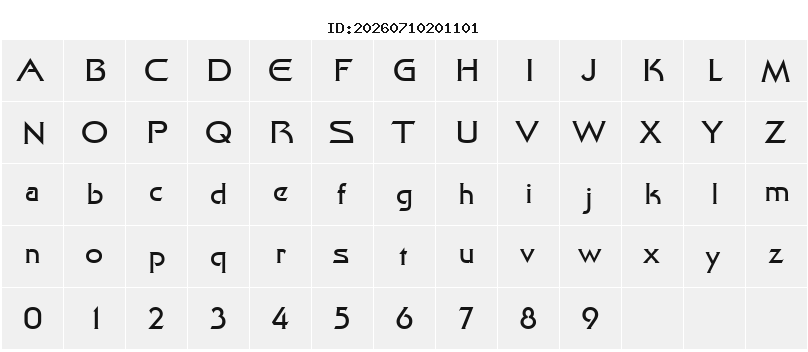
Galaxy BT Preview
• Font Name: Galaxy BT
• Full Font Name: Galaxy BT
Galaxy BT.ttf is a modern, elegant sans-serif font designed for ultimate readability and visual harmony. Perfect for branding, headlines, web design, and print materials.